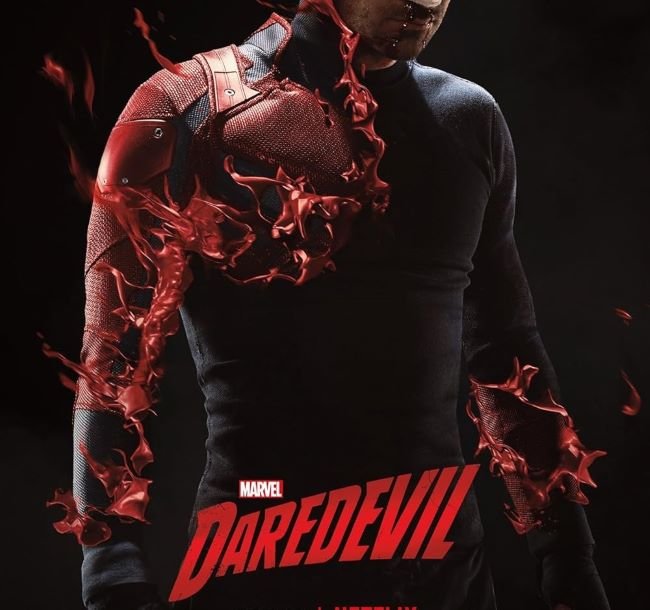
Daredevil Font
Daredevil font — designed by Iconian Fonts — arrives on Netflix’s 2015 Marvel series carrying the dual weight of Matt Murdock’s two identities: a clean, modern sans-serif with angular fonts that have enough edge to suggest danger without abandoning the legal professionalism that defines Matt’s daytime life in Hell’s Kitchen.
This is not the typography of the bright, primary-colour Marvel universe; it is the typography of a show that wanted to be a crime drama first and a superhero series second, and the restrained, sophisticated letterforms signal that commitment in the opening titles before a word of dialogue has been spoken.